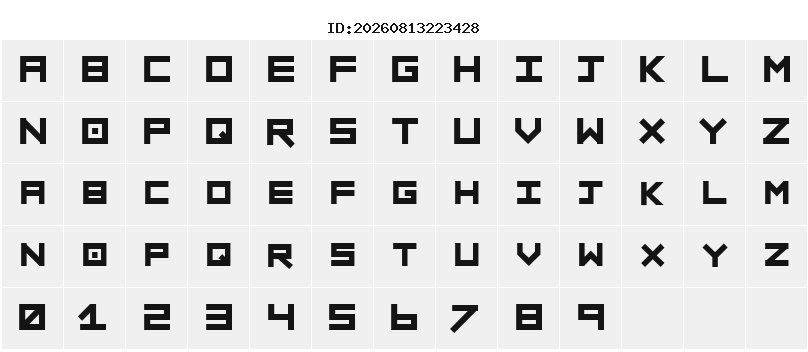
sinner Preview
About sinner.ttf
sinner.ttf is a modern, elegant sans-serif font designed for ultimate readability and visual harmony. Perfect for branding, headlines, web design, and print materials.